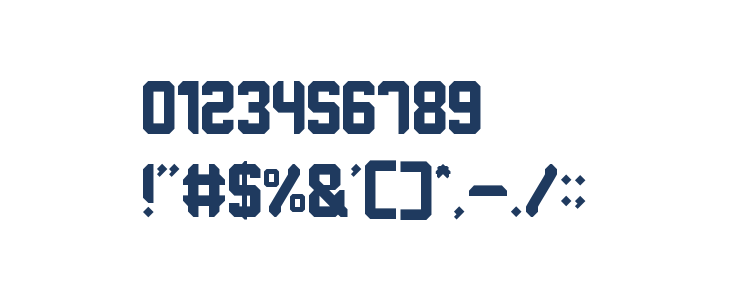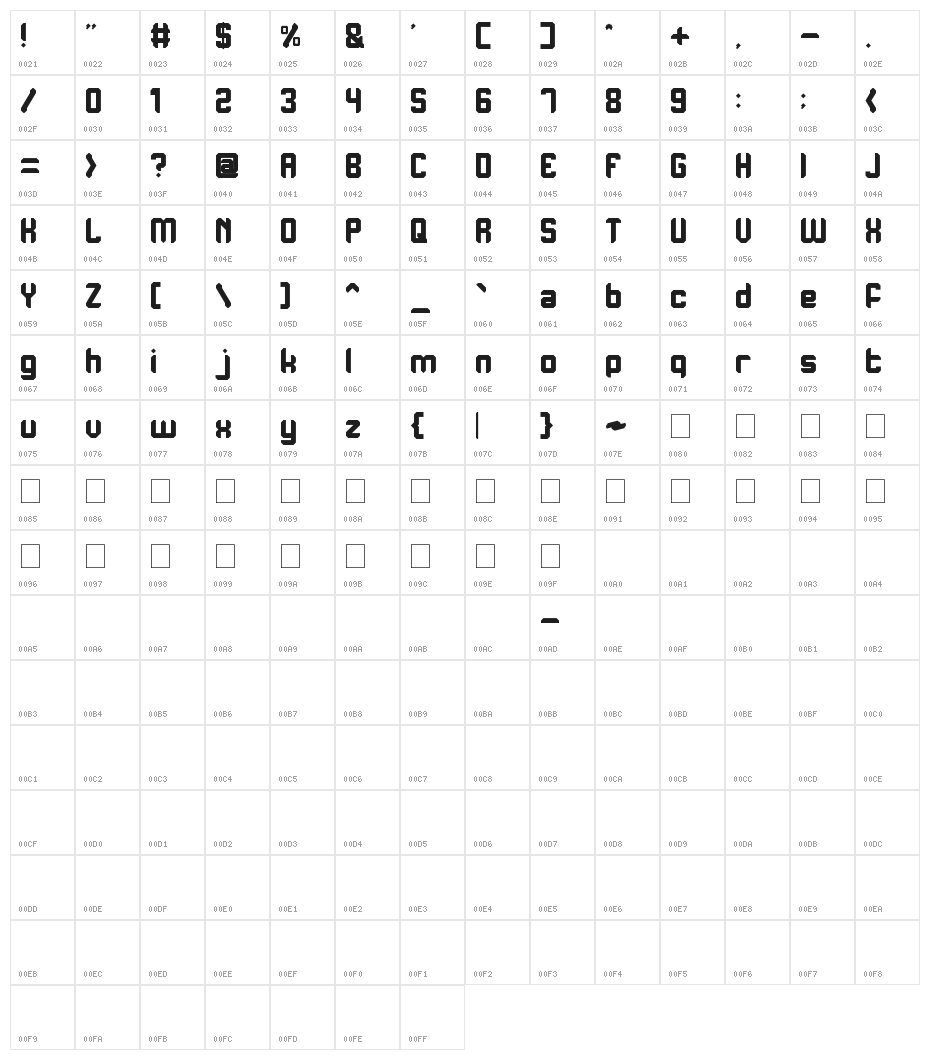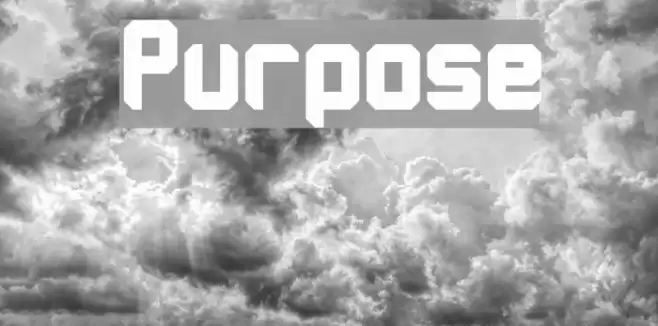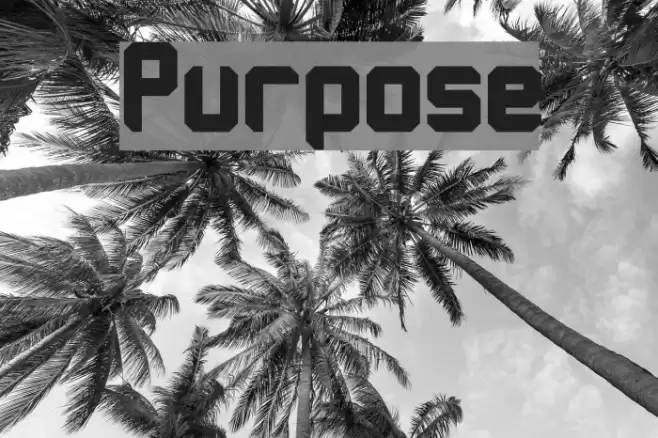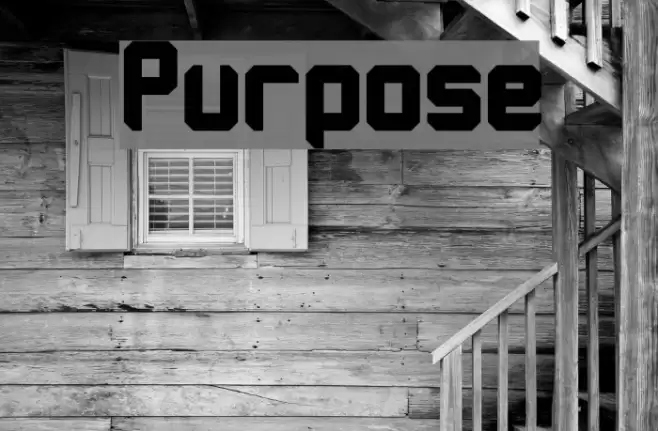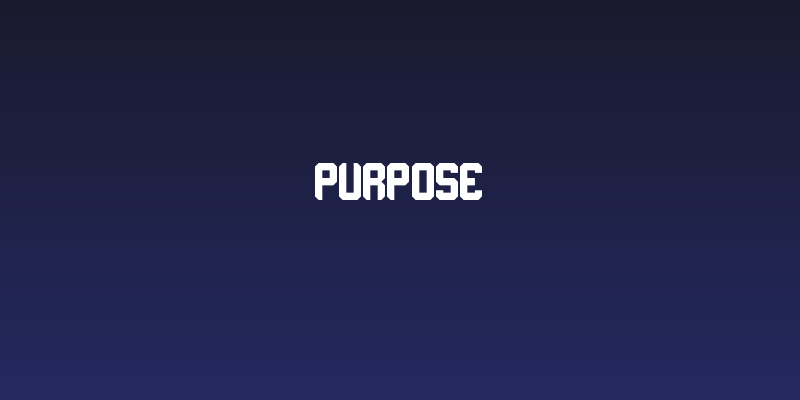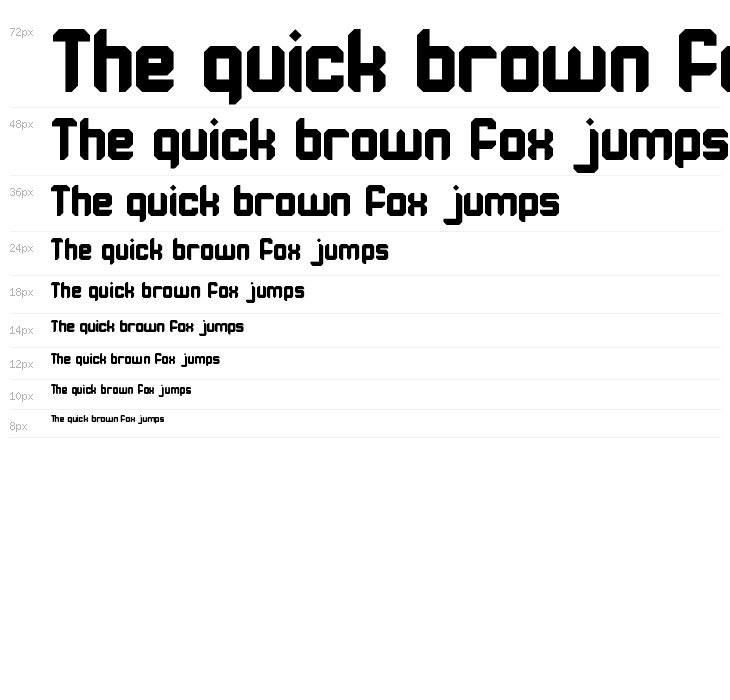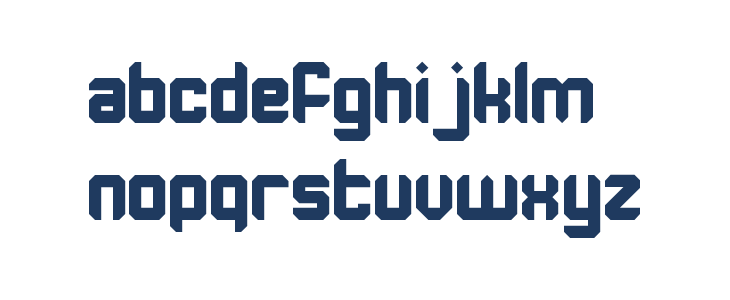
Purpose Font
Purpose Description
This font features a bold, geometric design with a distinctly modern and futuristic aesthetic. The characters are constructed with thick, angular lines and sharp edges, creating a sense of strength and stability. The uppercase and lowercase letters maintain a consistent style, with uniform stroke widths and a blocky appearance. The numerals and special characters follow the same design principles, ensuring a cohesive look across all elements. This font's unique style makes it stand out, ideal for projects that require a strong visual impact.
| Proposed Projects | Ideal for branding, posters, video game graphics, and tech-related designs. |